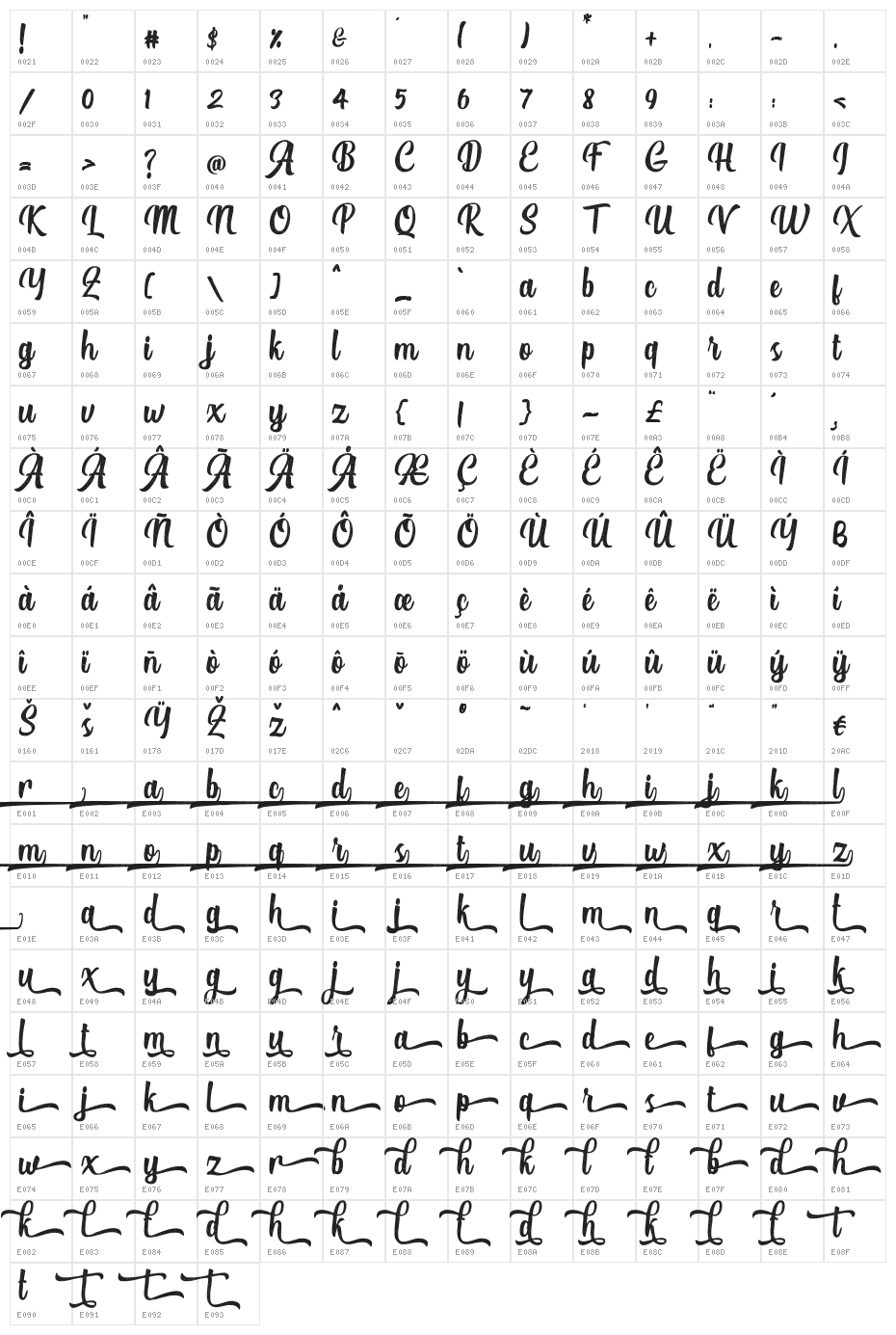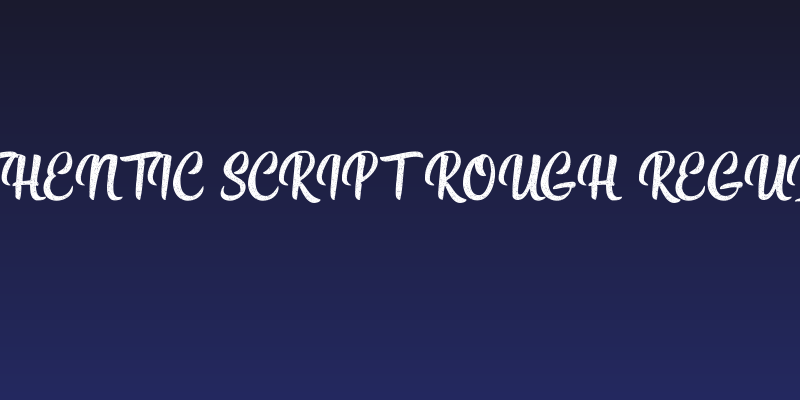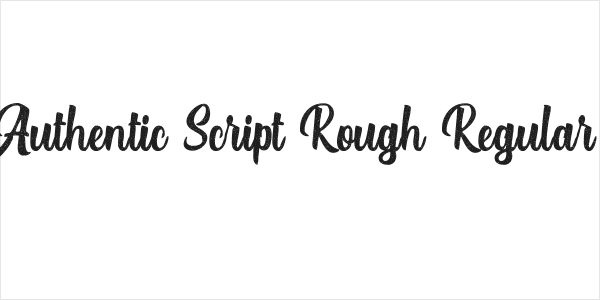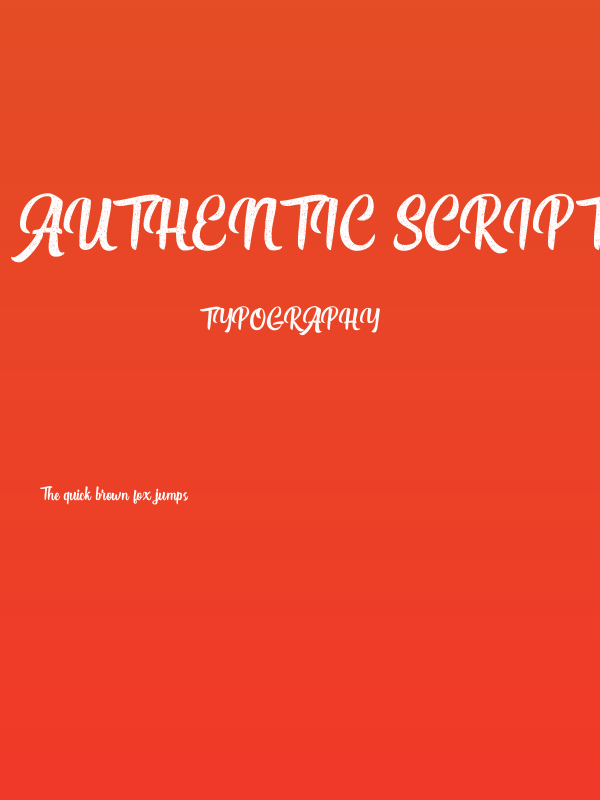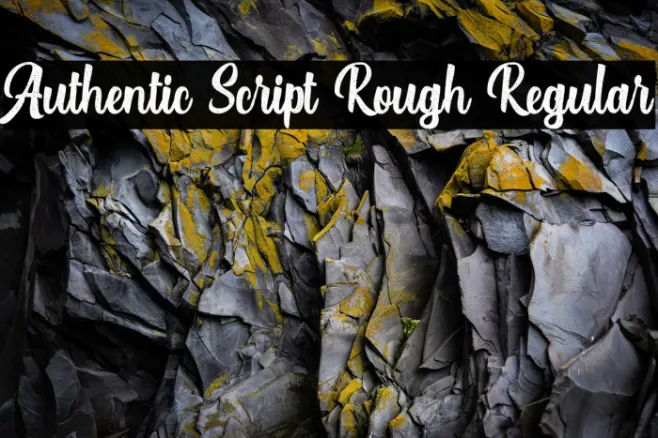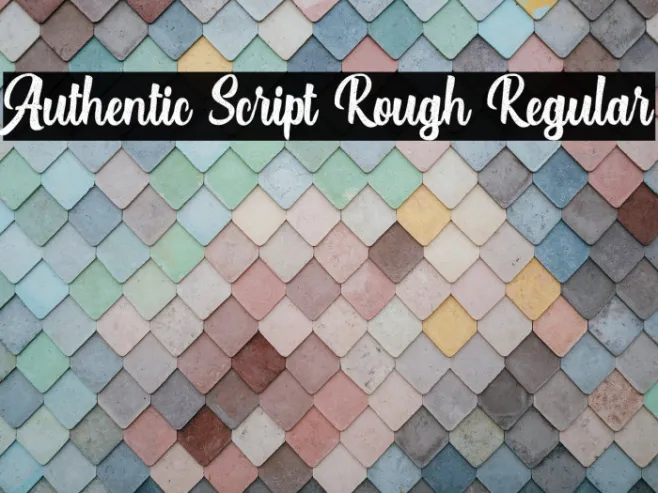
Authentic Script Rough Regular Font
Authentic Script Rough Regular Description
This font exudes a vintage charm with its rough, textured appearance, reminiscent of hand-painted signs. The script style features flowing, connected letters that add a sense of movement and elegance. The uppercase letters are bold and prominent, while the lowercase letters maintain a consistent flow, enhancing readability. Numbers and special characters are designed to match the overall aesthetic, providing a cohesive look. The texture gives it a rustic feel, making it ideal for projects that require a touch of authenticity and nostalgia.
| Proposed Projects | Ideal for branding, packaging, invitations, and signage that require a vintage or rustic touch. |